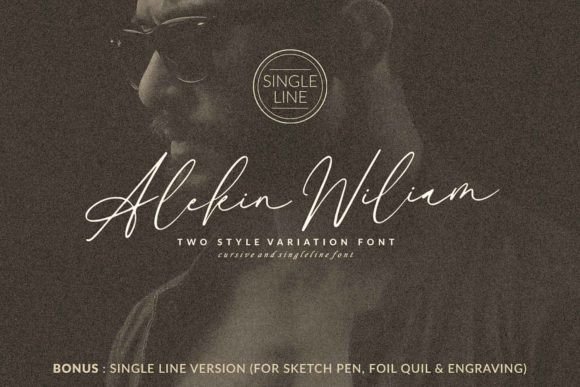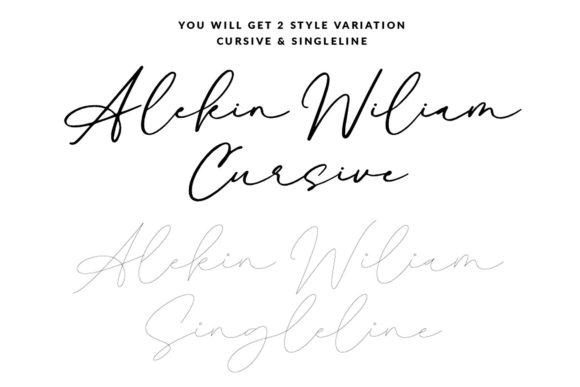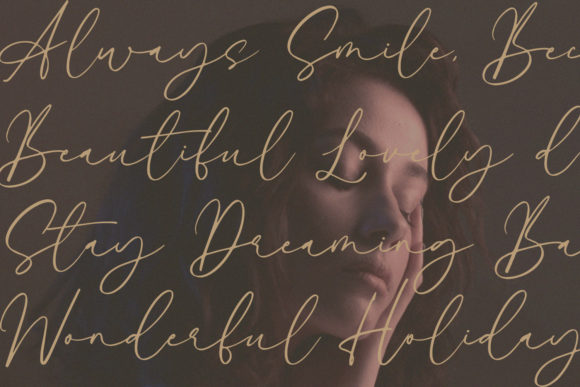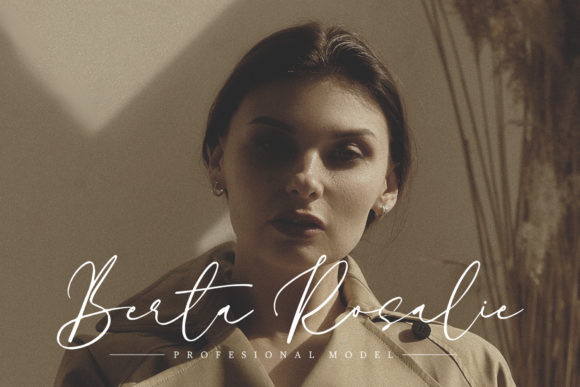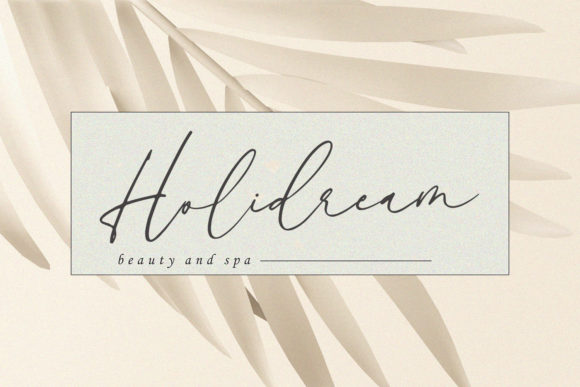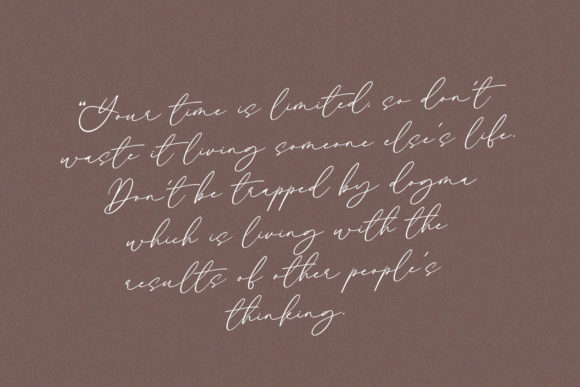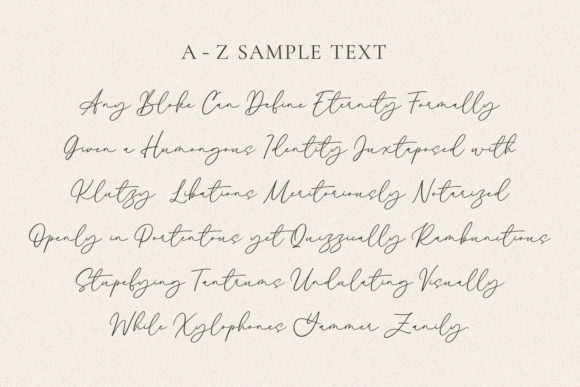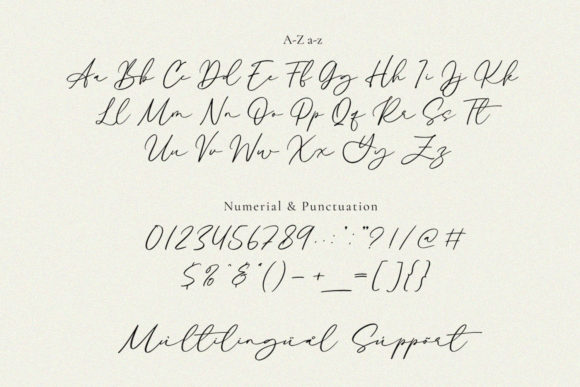
Alekin Wiliam Font
About Alekin Wiliam Font
Alekin Wiliam is a captivating and flowing script font that effortlessly blends beauty and elegance. Tailored for a wide range of applications, this font is perfect for product packaging, branding projects, magazine covers, social media posts, weddings, or any scenario where expressing words above a background is paramount.
The flowing nature of Alekin Wiliam imparts a sense of grace to your text, making it visually appealing and sophisticated. Whether used in digital or print media, this script font enhances the overall presentation of your content, giving it a distinctive and stylish touch.
Alekin Wiliam’s versatility allows it to seamlessly integrate into various design contexts, adding a touch of charm to each application. Whether you’re aiming for a modern and trendy look or a classic and timeless feel, this script font adapts to your vision with ease.
Its application spans across diverse design needs, bringing a sense of beauty and fluidity to your projects. From product packaging to social media graphics, Alekin Wiliam enhances the visual appeal of your text, making it both expressive and engaging.
In summary, Alekin Wiliam is more than just a font; it is a design asset that elevates your creative work. With its flowing and beautiful script, this font is poised to enhance your projects, ensuring they stand out with a touch of sophistication and style. Explore the possibilities and let Alekin Wiliam be the perfect choice for expressing your words above the background in a visually captivating manner.